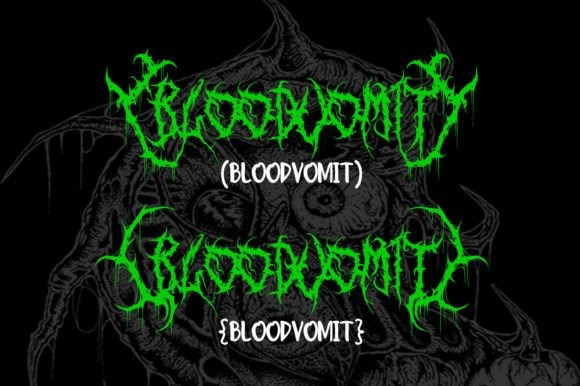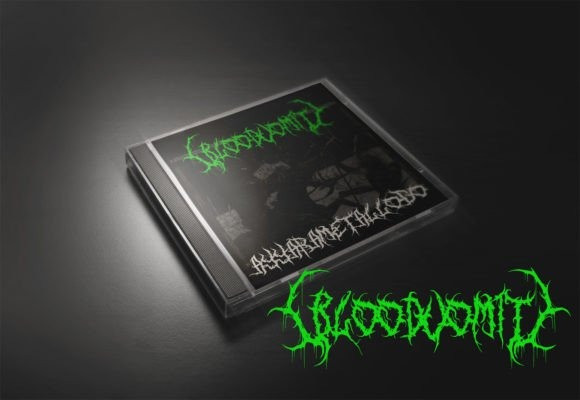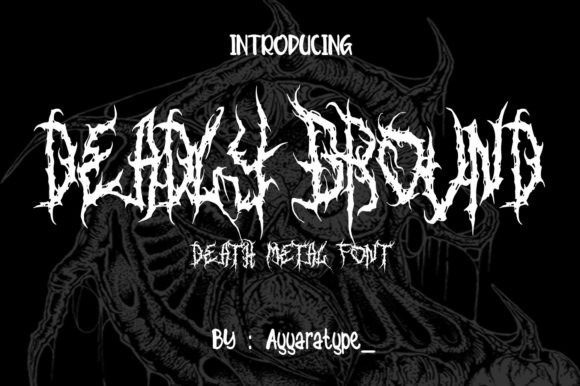
Deadly Ground Font
Deadly Ground Font is an extreme display font designed for unique, horror-themed designs. If you’re in love with death metal, grindcore, and the horror movie scene, you will definitely enjoy using this font for your projects.